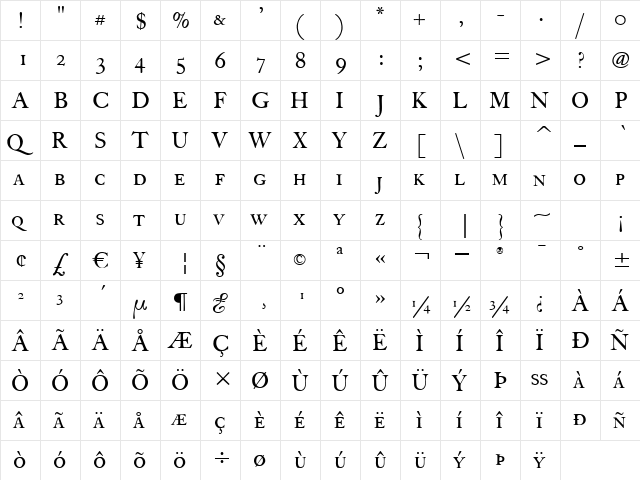
FCaslonThirtySCITC TT Roman
| Foundry | International Typeface Corporation |
| Designer | Justin Howes |
Design Context for FCaslonThirtySCITC TT Typeface
FCaslonThirtySCITC TT is a composed and adaptable typeface that performs quietly and consistently across a wide range of design contexts.